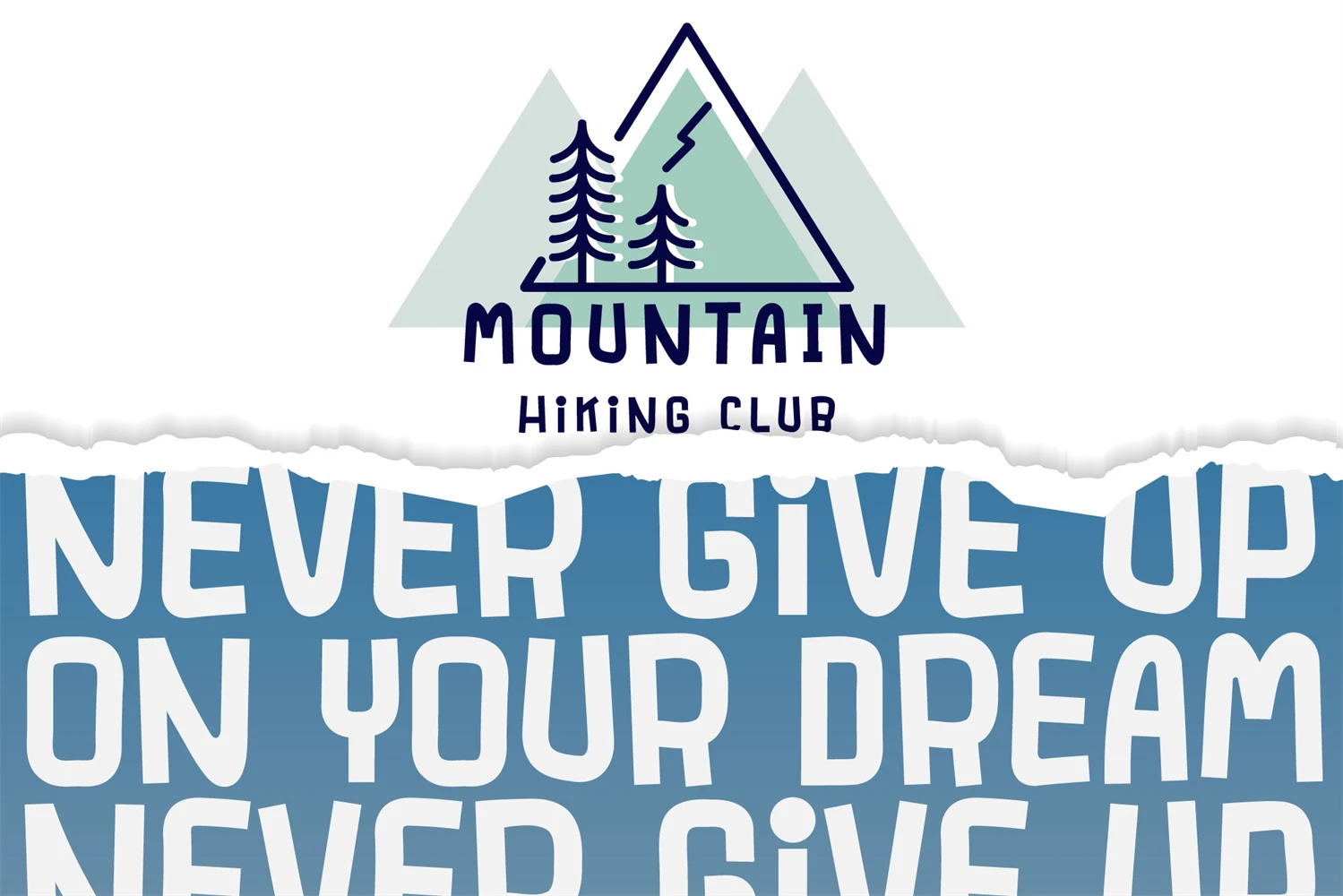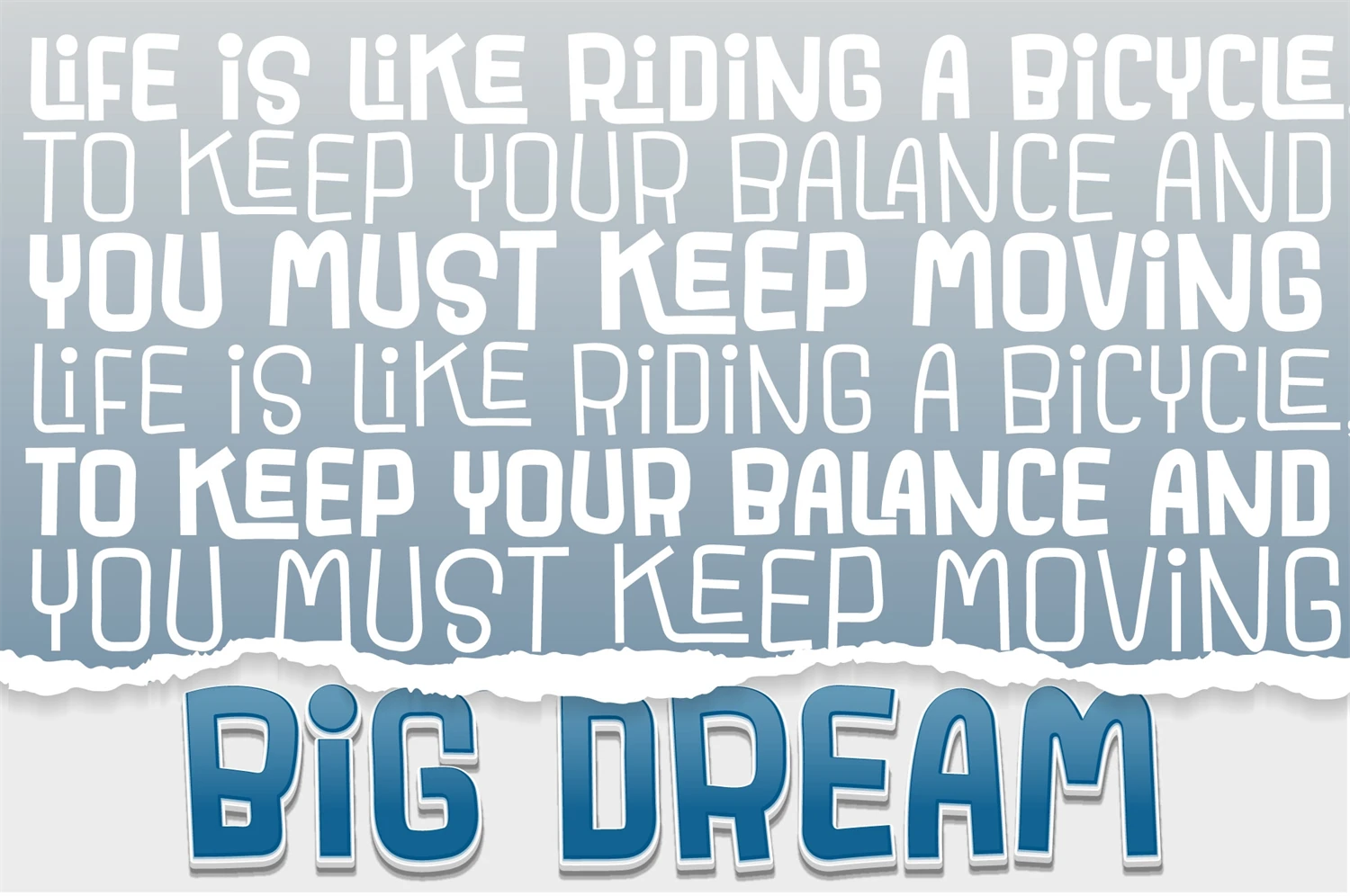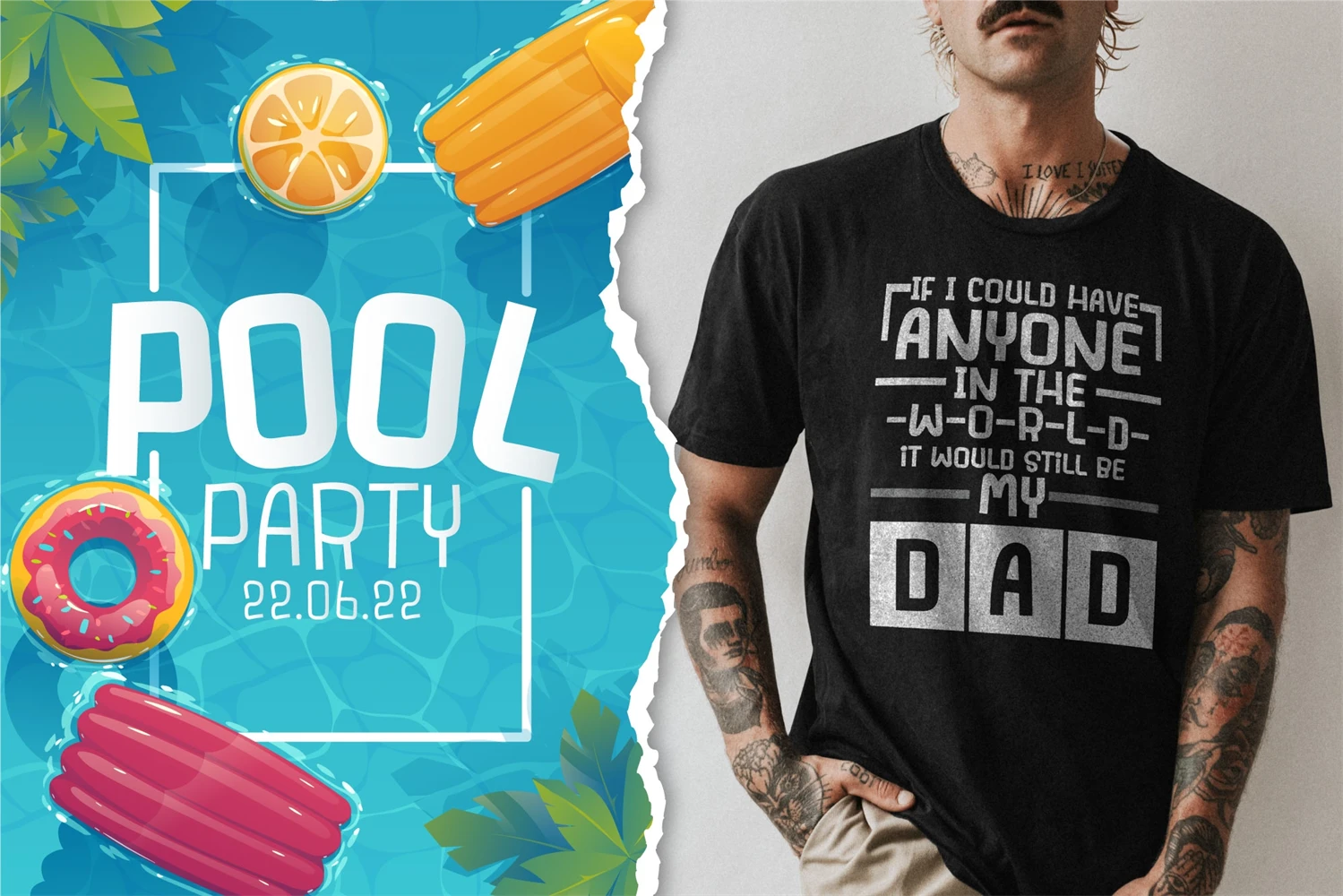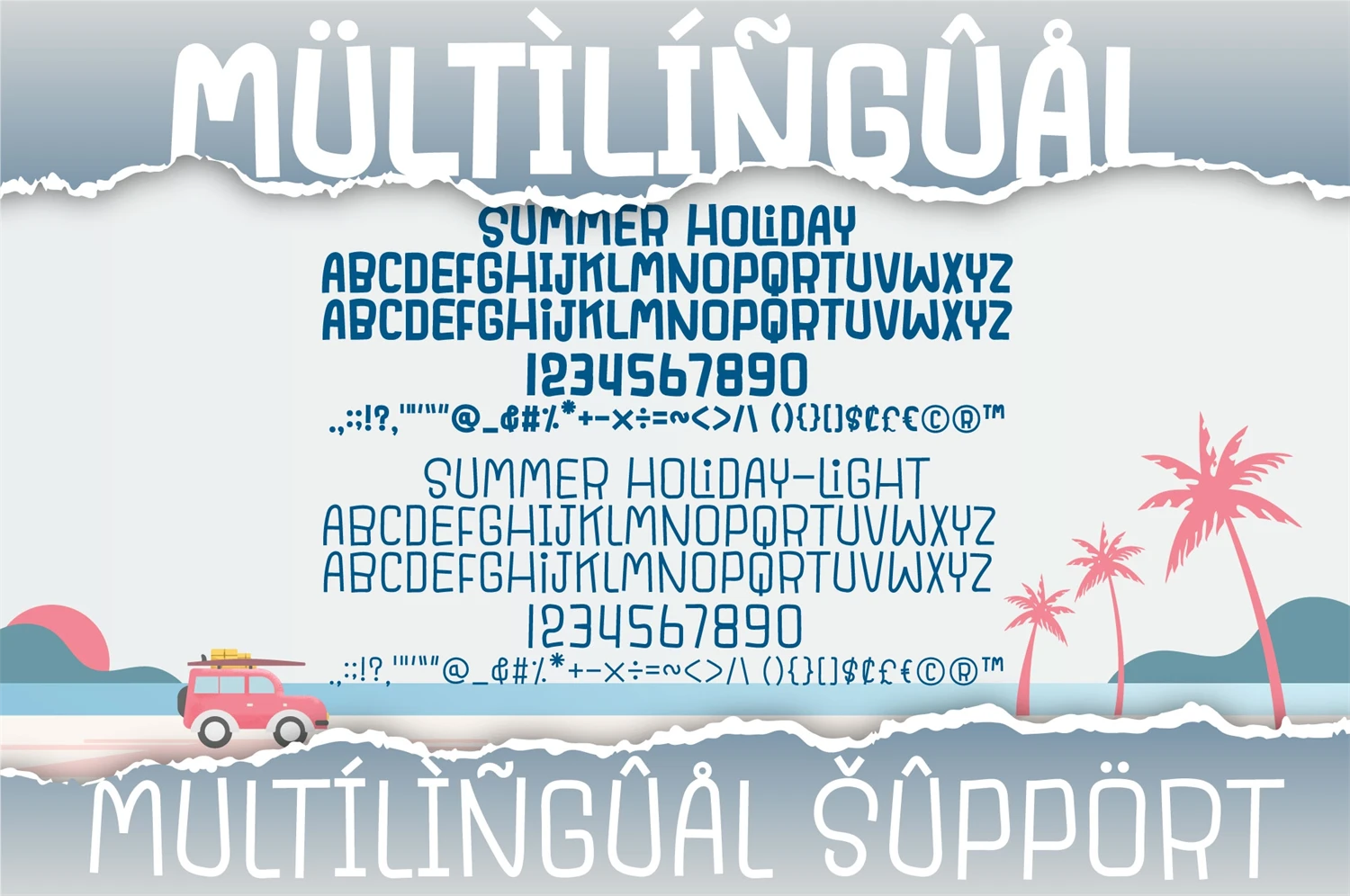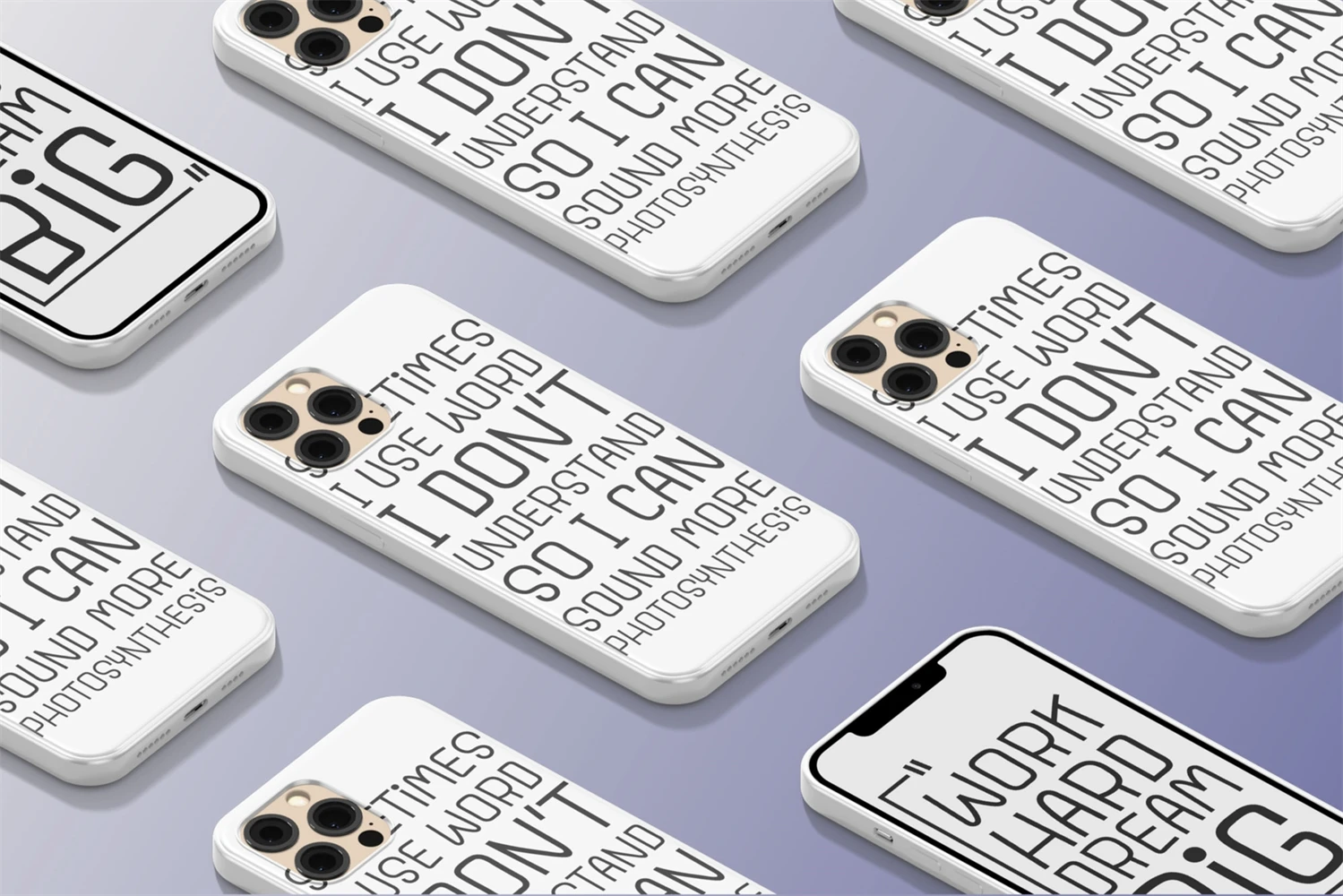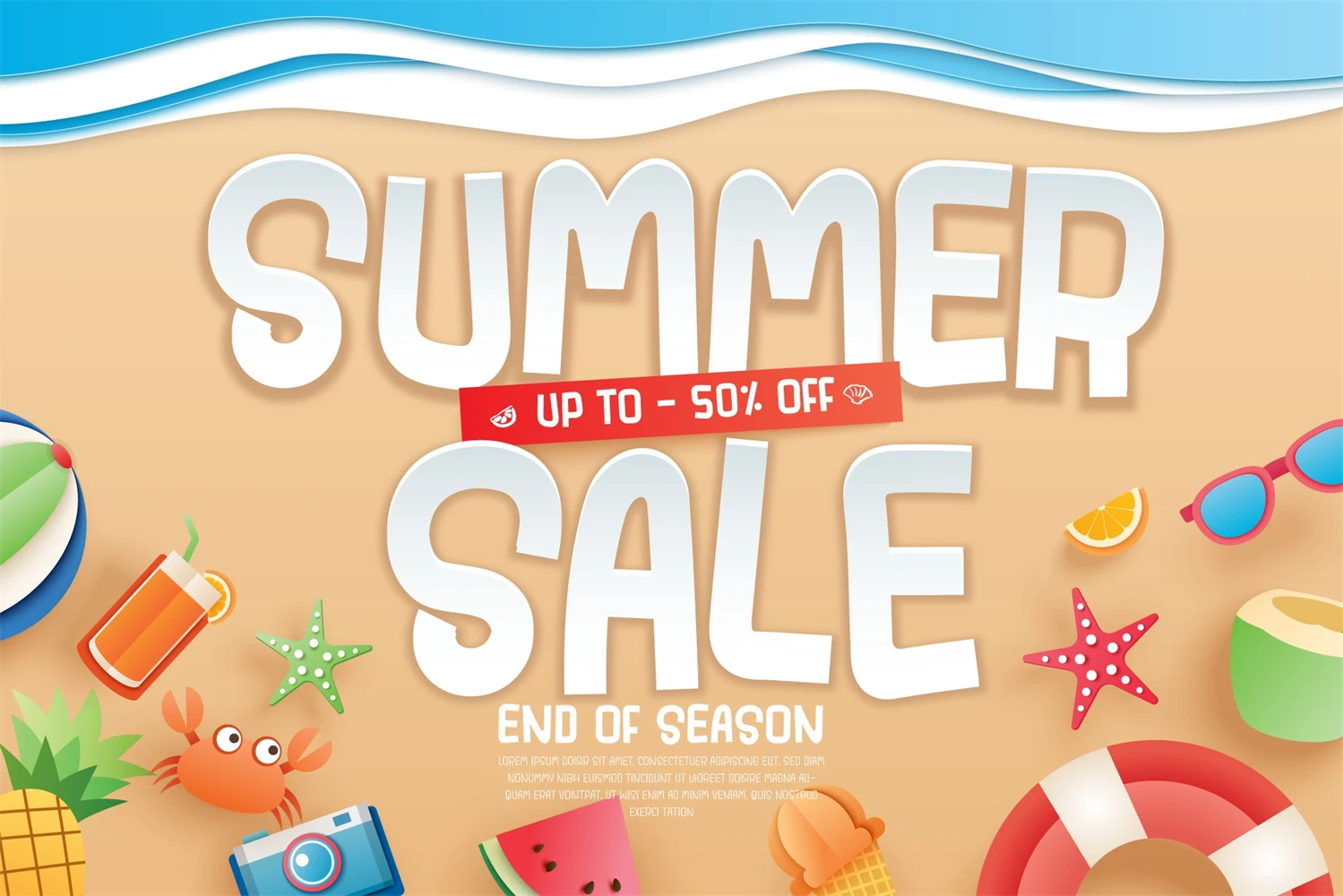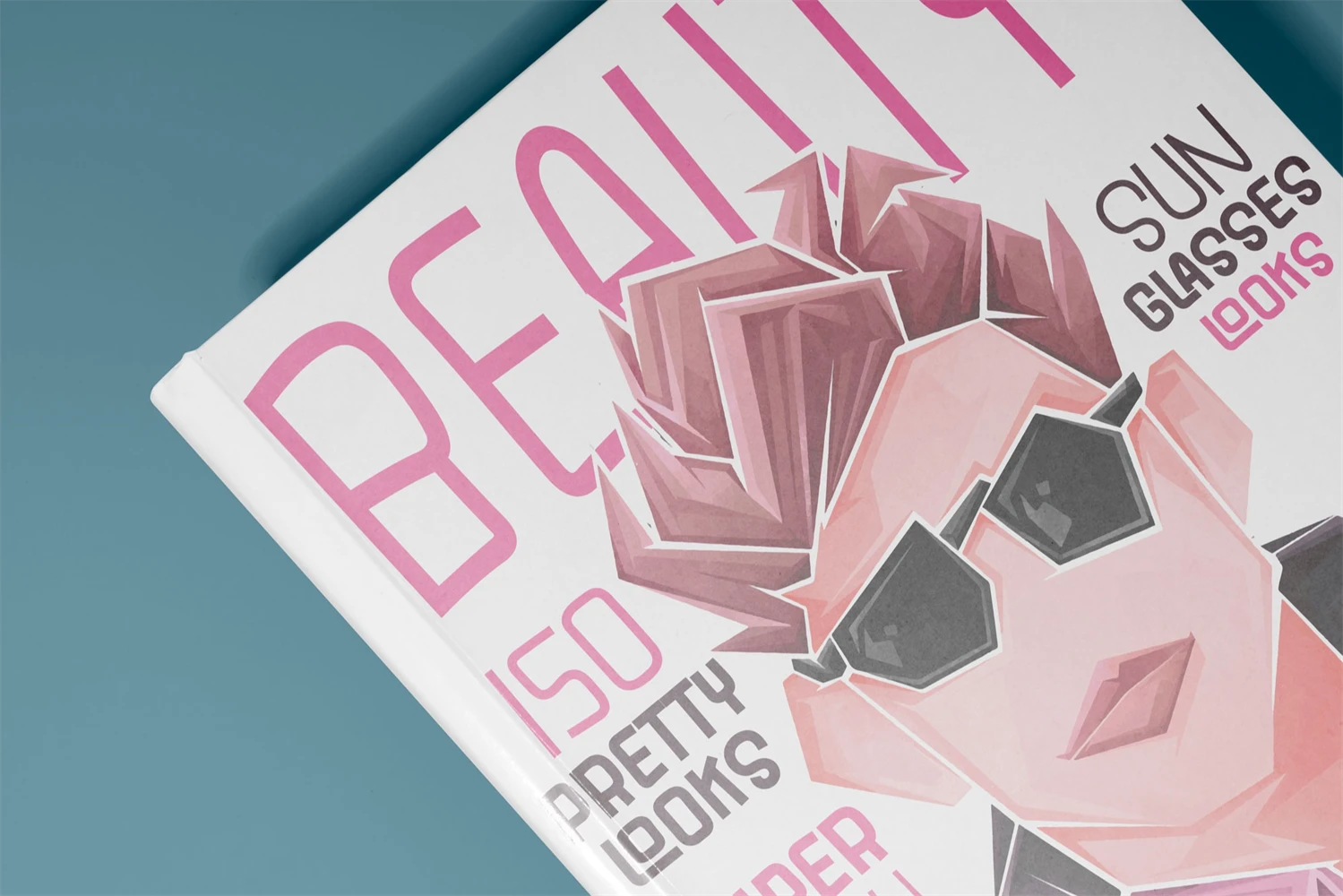
Summer Holiday Font is a bold and smart display font that exudes trendiness and style. With its eye-catching appeal, this font is perfect for a wide range of creative projects. Crafted with care, Summer Holiday Font adds a touch of elegance to your designs, whether you're working on crafting, digital designing, presentations, or greeting cards. Its versatility and modern aesthetic make it a must-have in your font collection. Get creative and elevate your projects with Summer Holiday Font today!